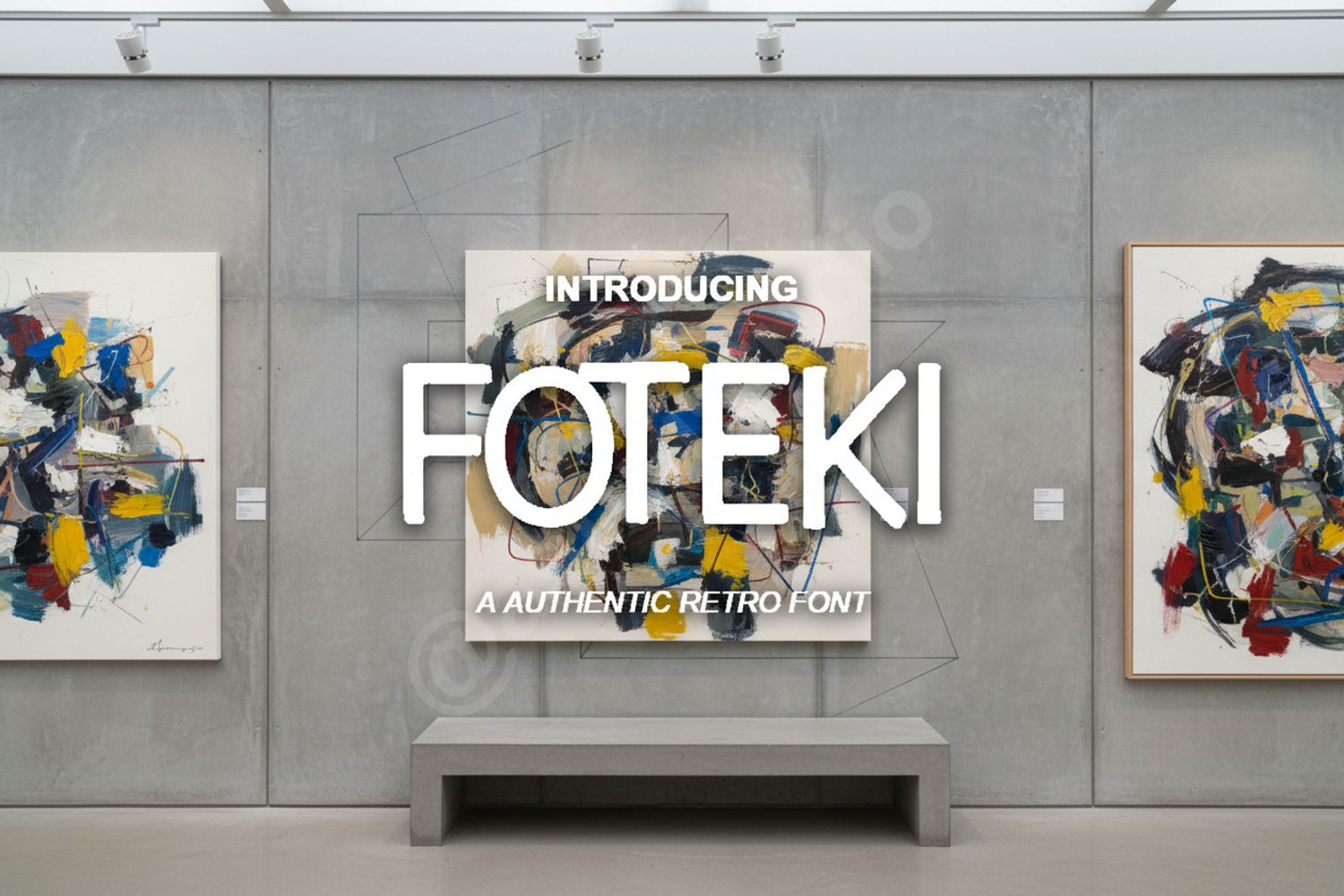
Foteki - Modern Geometric Sans Serif Font
Foteki
Introducing Foteki, a premium geometric sans serif font designed for modern aesthetics. With its clean lines and balanced proportions, Foteki offers a sophisticated touch to any creative project. This font is meticulously crafted to ensure high legibility and a professional feel across various digital and print platforms.
- Extensive Multilingual Support
- Standard Ligatures and Precise Kerning